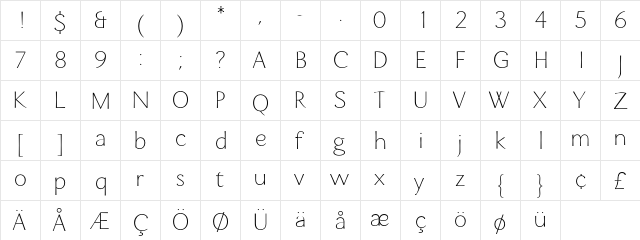
Eniza Thin
Design Context for Eniza Typeface
Eniza offers clean, dependable letterforms without strong stylistic allegiance, making it a practical choice for designers who need flexibility. The delicate stroke weight brings airiness and refinement to layouts.
Dating back to 2006, this typeface is available in OpenType (OTF) format.